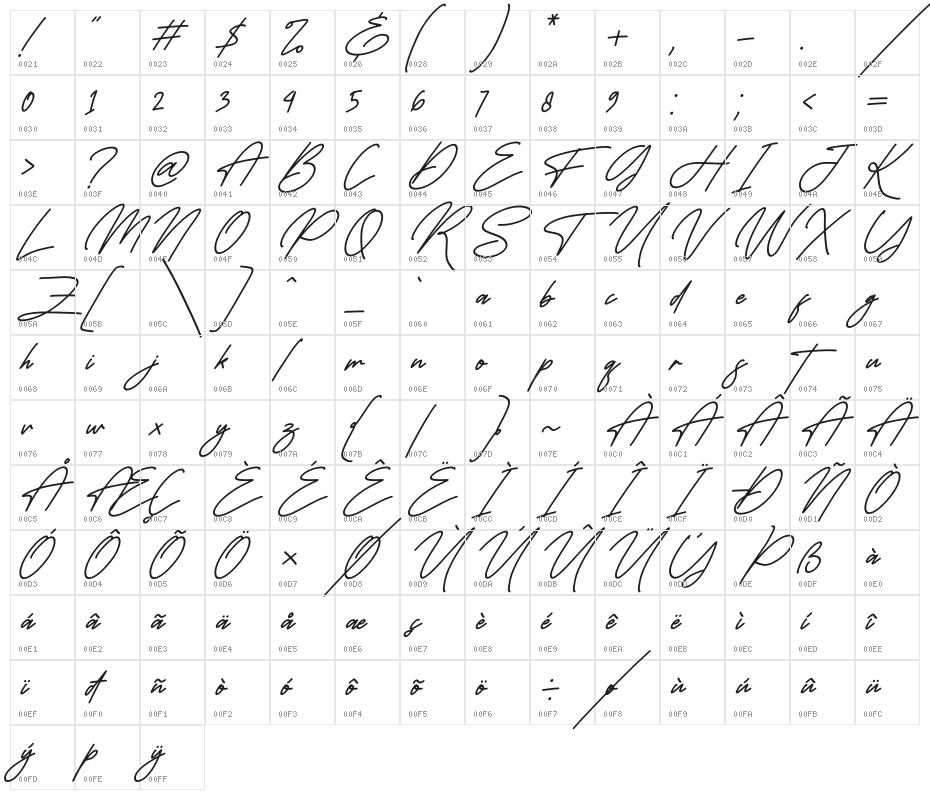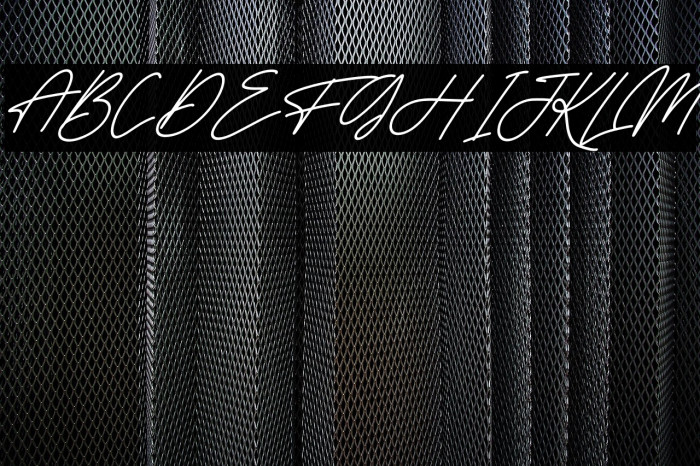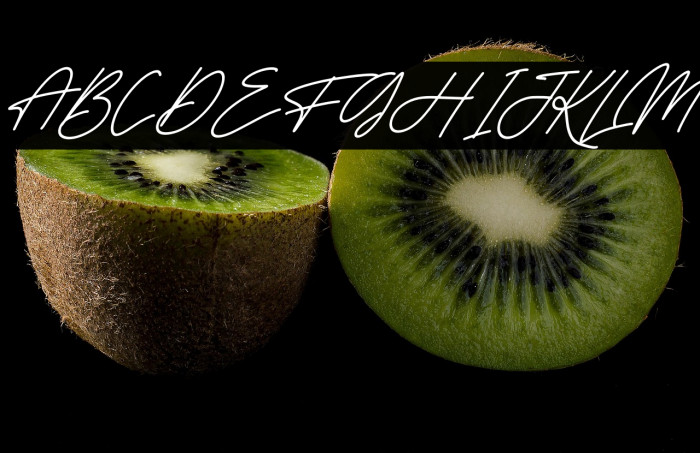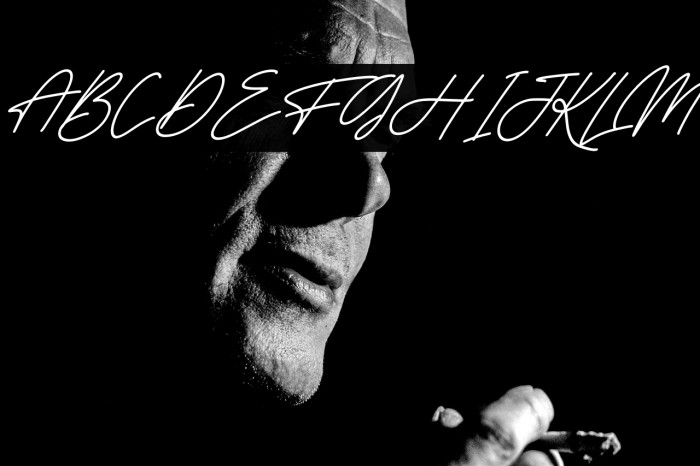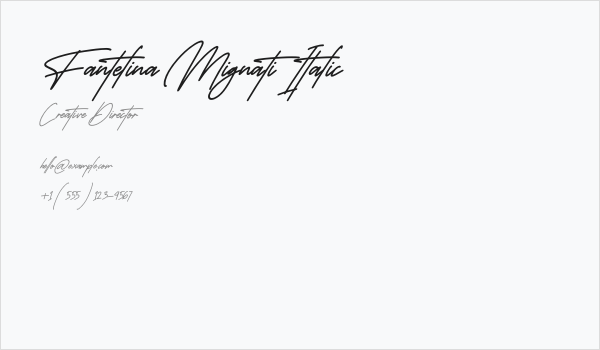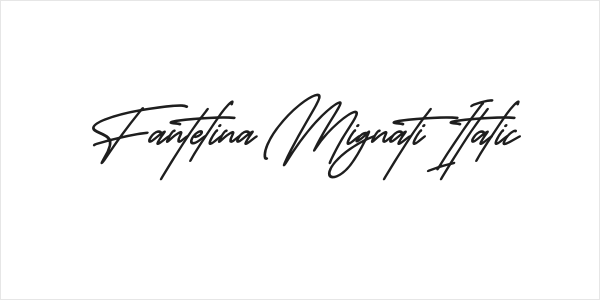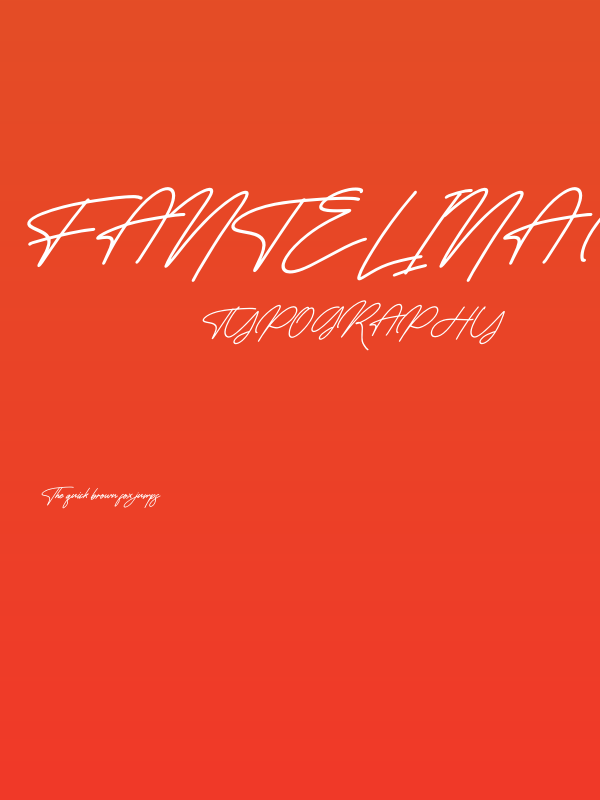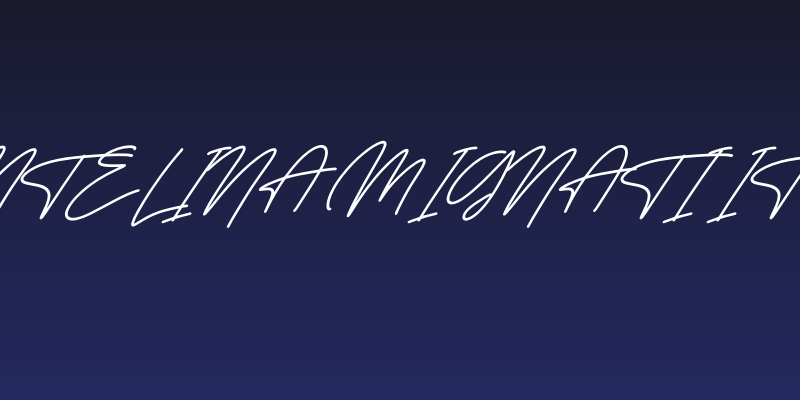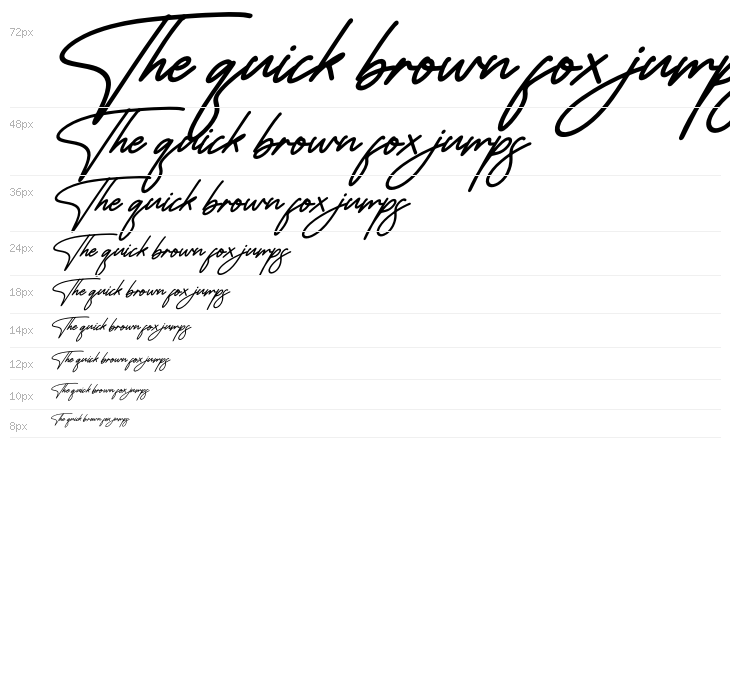
Fantelina Mignati Italic Font
Fantelina Mignati Italic Description
This font features an elegant and flowing script style, characterized by its smooth, cursive letterforms that convey a sense of sophistication and fluidity. The uppercase letters are slightly elongated, with graceful curves and loops that enhance its decorative appeal. The lowercase letters maintain a consistent slant, creating a harmonious and cohesive look throughout the text. The numerals and special characters are designed to match the overall aesthetic, ensuring a seamless integration when used in various contexts. This font's italic nature adds a dynamic and lively touch, making it suitable for creative and expressive projects.